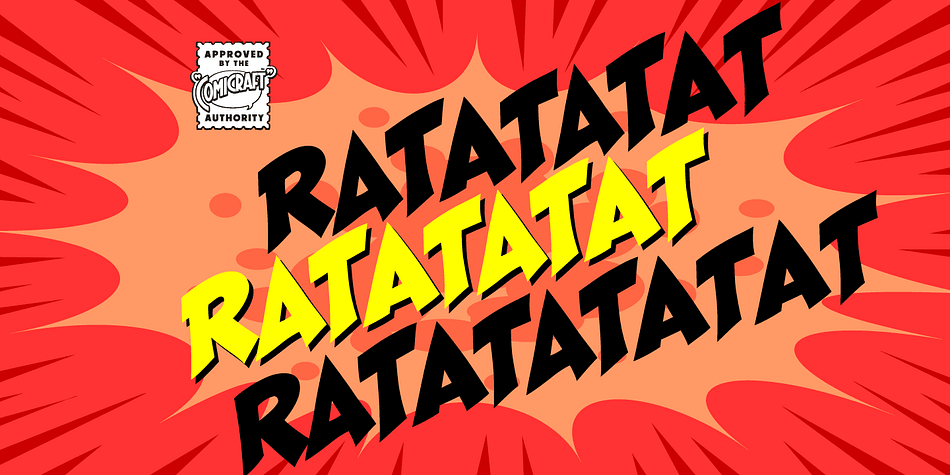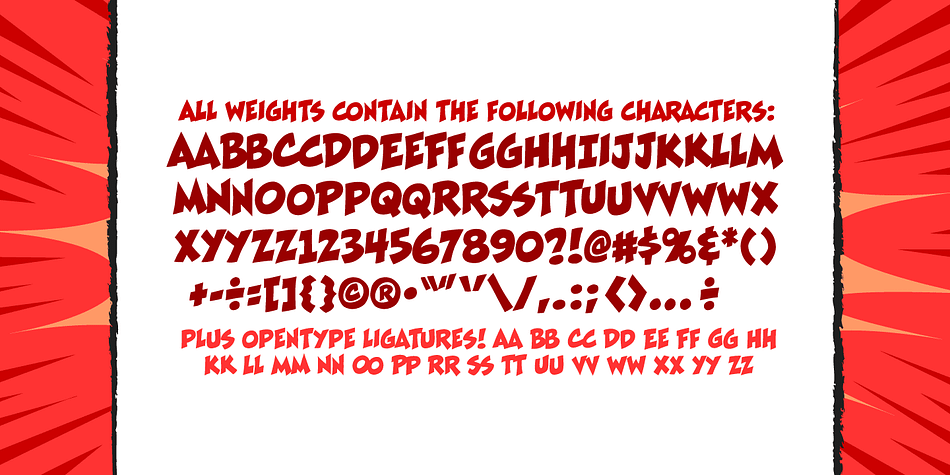
Designed by John Roshell, Ratatatat is a comic and hand display font family. This typeface has two styles and was published by Comicraft.
So y’think youse gonna whack me, huh? Y’think that font o’ yours is packin’ enough heat to finish me off? Huh? Is that what youse is thinkin’? Well go ahead, but if y’whack me then every two bit hood in Alphabet City is gonna hunt youse down and kern youse like the rat you are! So go ahead, show them you’re the Big Boss, the Kingpin of Crime, the Godfather… but you won’t see me beggin’ for my life, ‘cause I got pride, see? I got—RATATATATATATTATAT…
Ahhh… fuggedaboutit!!